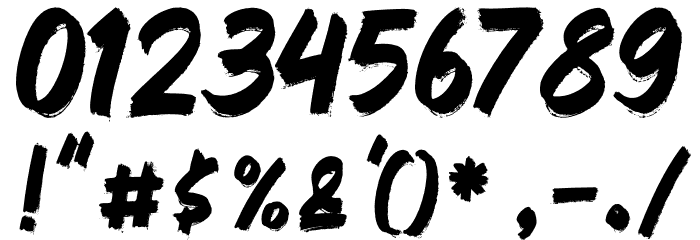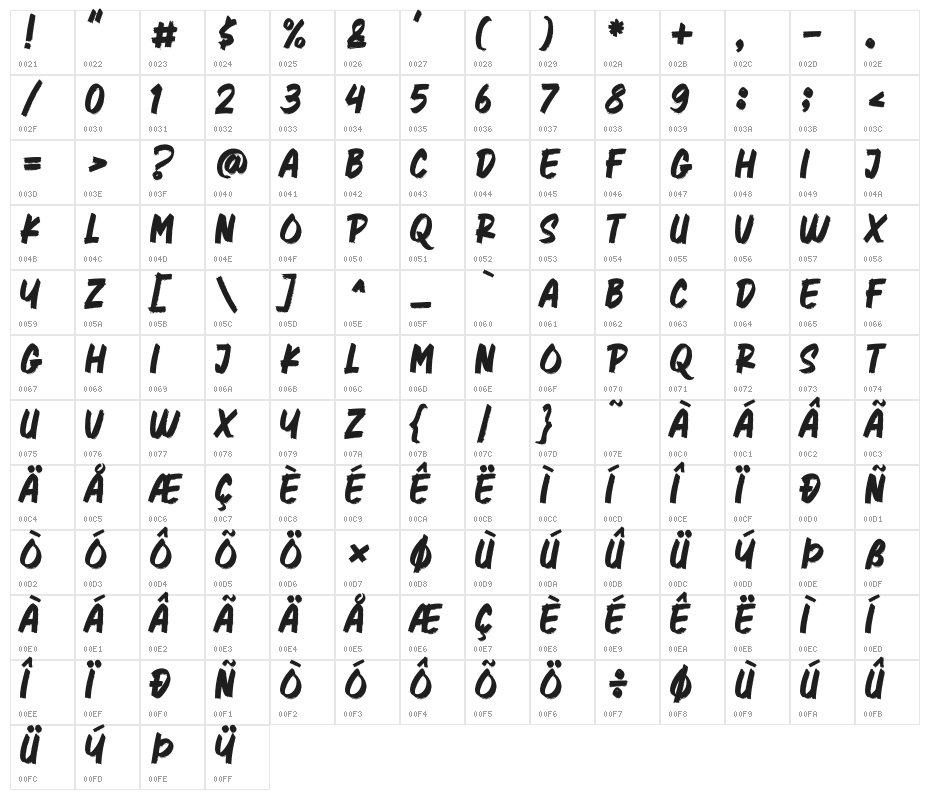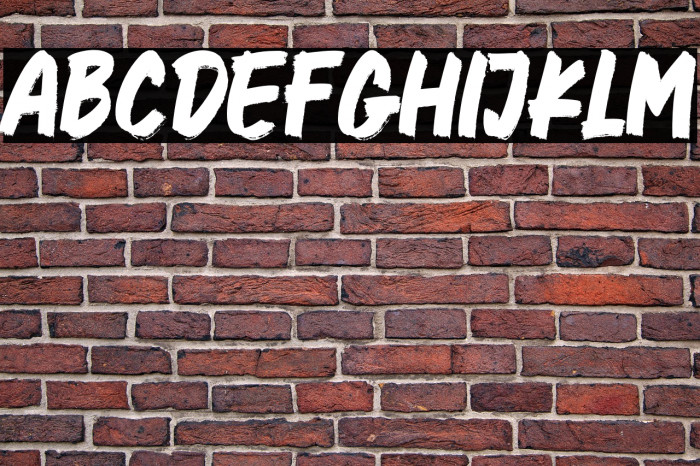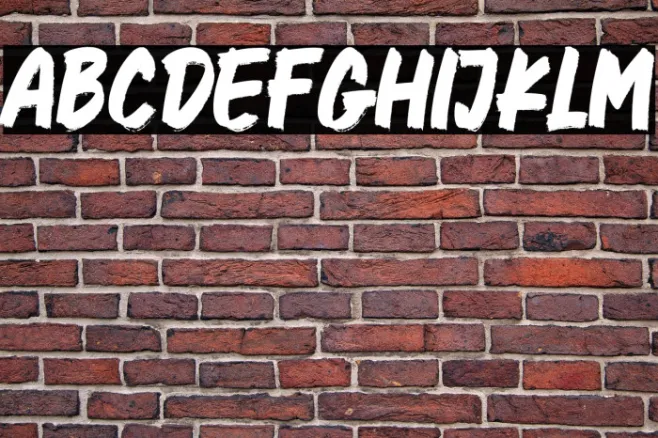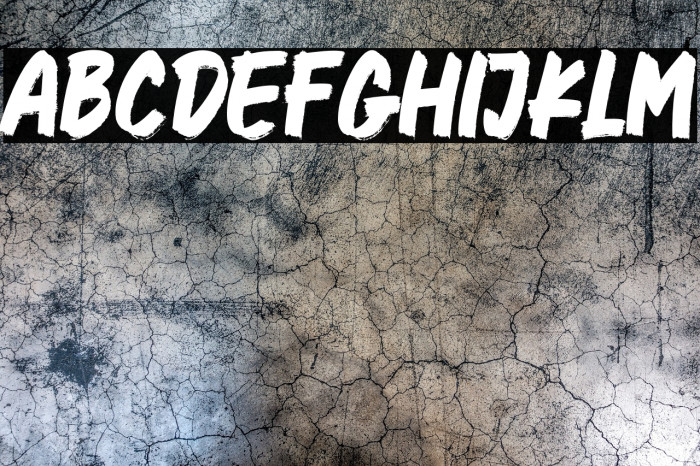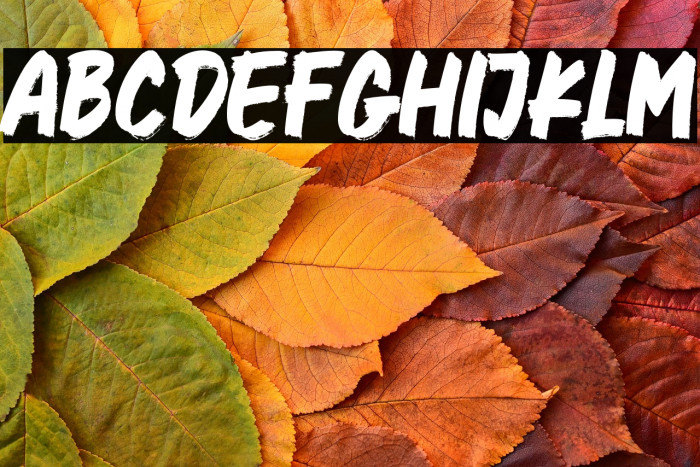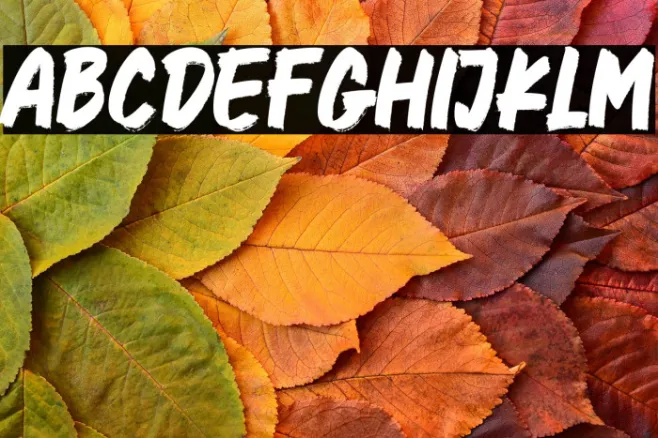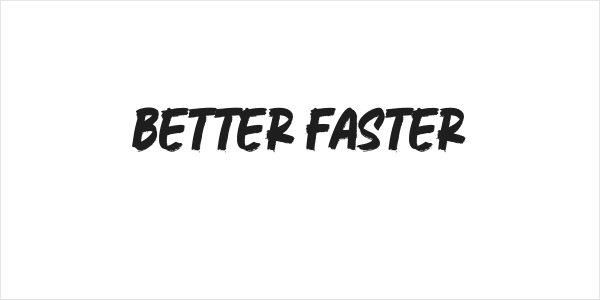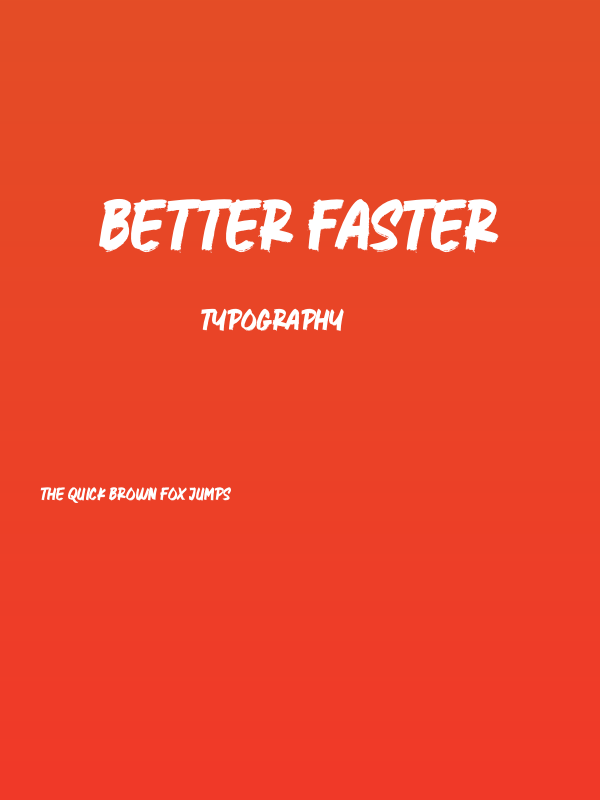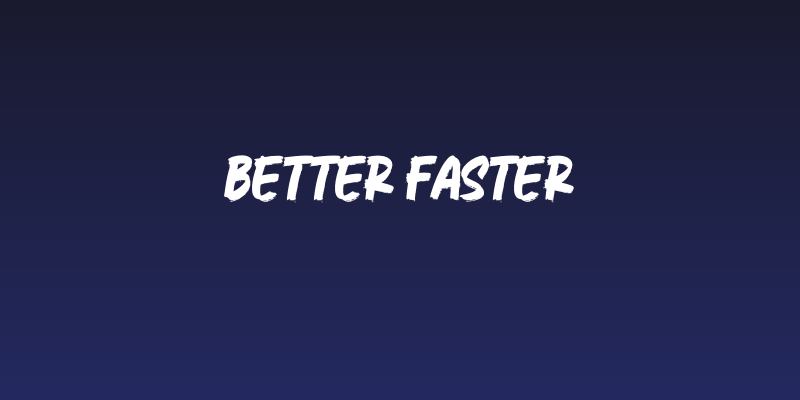
Better Faster Font
Better Faster Description
This bold and dynamic font features a brush script style that exudes energy and movement. The strokes are thick and expressive, with a hand-painted appearance that adds a personal touch. Each character is crafted with a sense of urgency and flair, making it ideal for designs that require a strong visual impact. The uppercase and lowercase letters maintain a consistent style, while the numbers and special characters complement the overall aesthetic. The font's boldness and artistic flair make it suitable for projects that aim to capture attention and convey a sense of creativity.
| Proposed Projects | Perfect for posters, branding, social media graphics, and any project needing a bold, artistic touch. |